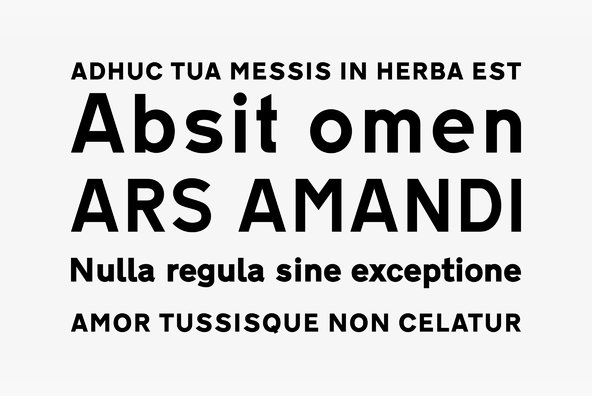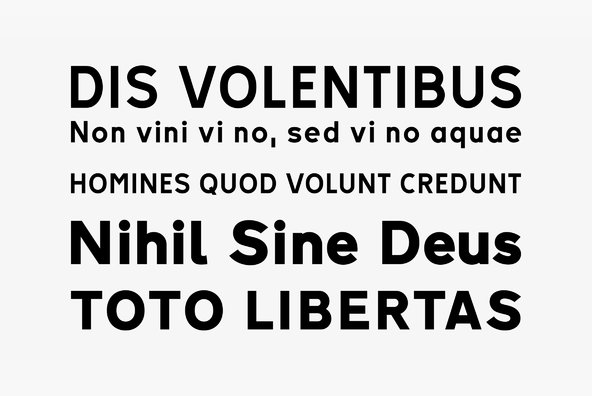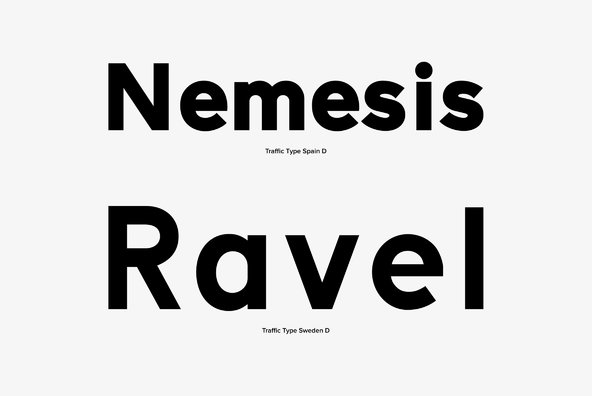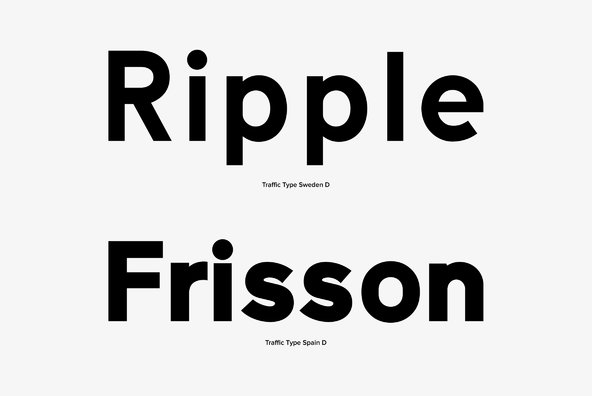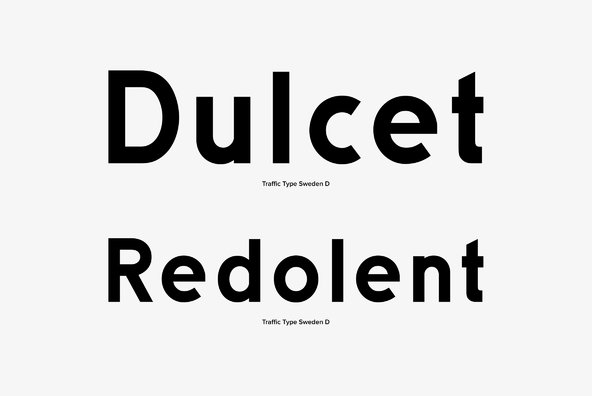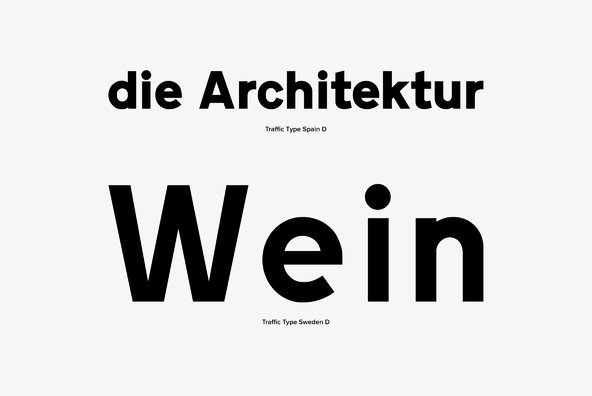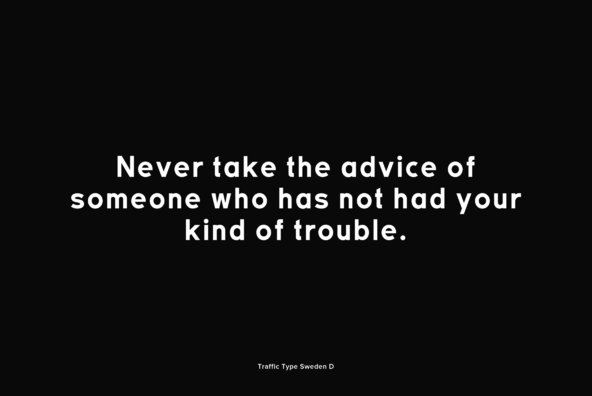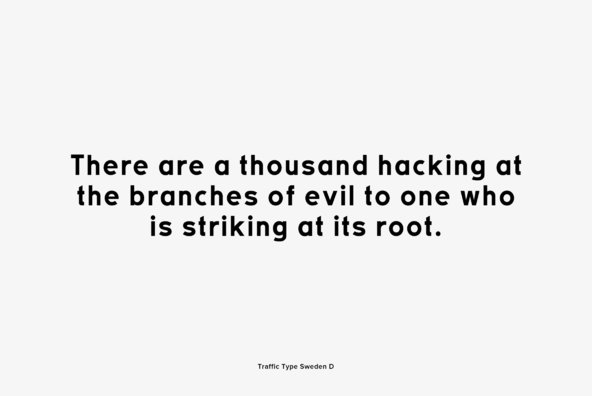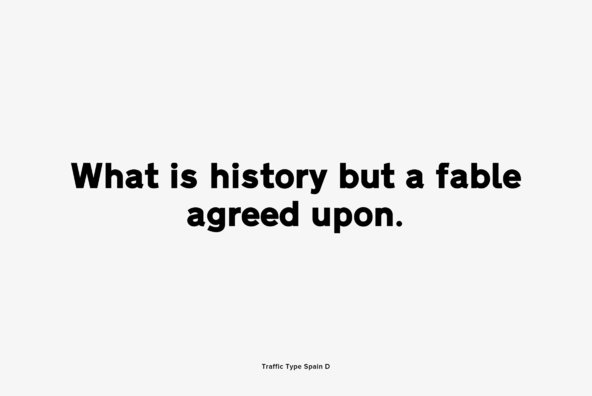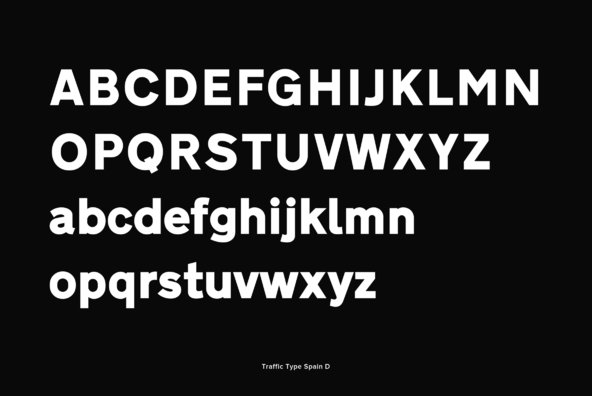
Originally designed in 1980, Traffic Type is a font family of 2 sans-serifs and 1 serif. The fonts are European in style, inspired by highway and interstate signage of Spain, Sweden and Luxembourg. These fonts work great in multiple mediums, and have a very clean, modern and powerful effect when used in headlines, fashion and information design.